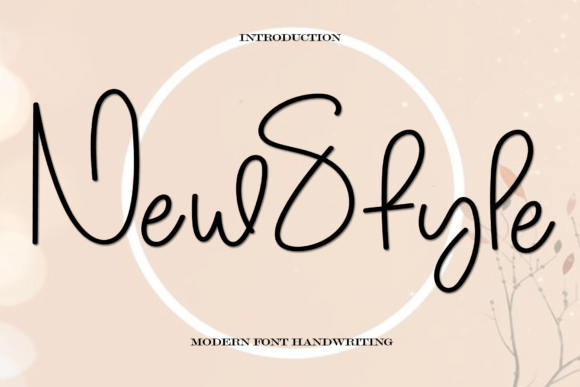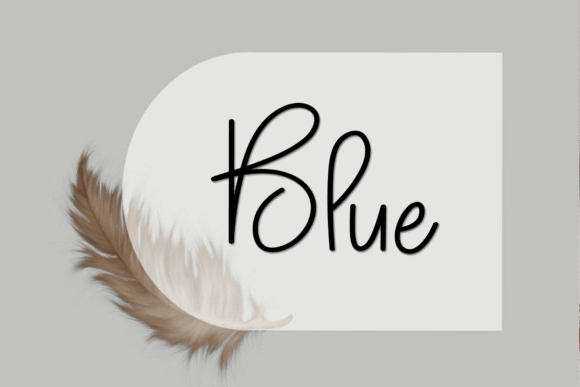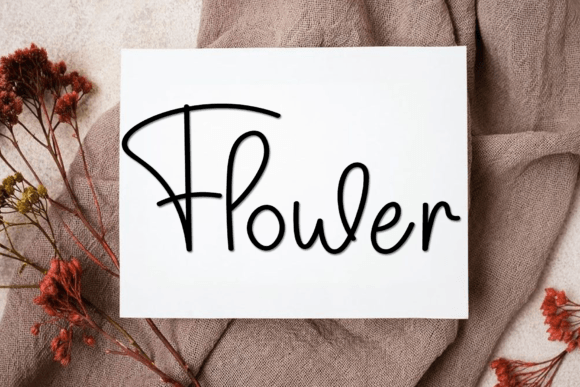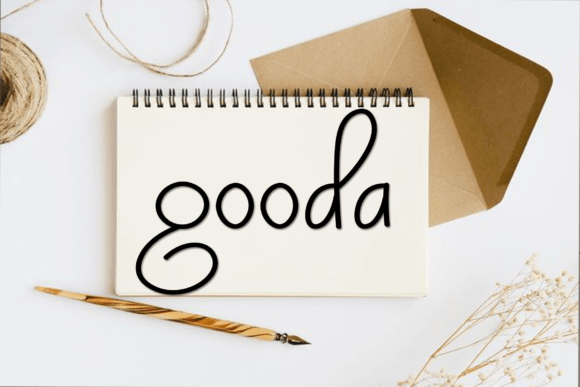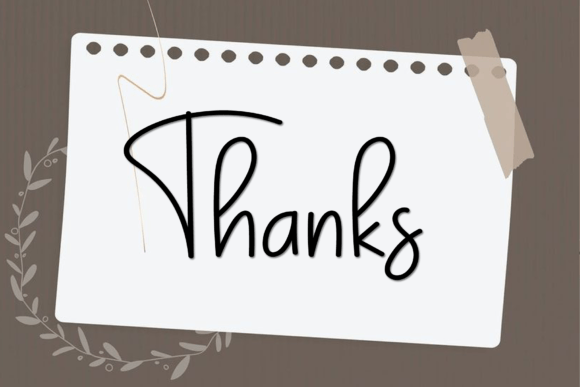
New Style Font
About New Style Font
New Style is a classic and simple handwritten script font that blends timeless charm with modern ease of use. It was created for designers, crafters, and small business owners who want an approachable yet polished handwritten look in their work. Whether you’re designing greeting cards, social media graphics, or branded materials, New Style adapts effortlessly to any creative project.
This font stands out because it balances clarity and personality. Each character has a soft, smooth curve that feels warm and welcoming. It looks handwritten but remains easy to read, even at smaller sizes.
Classic Handwritten Appeal
New Style captures the feel of natural handwriting without looking messy or uneven. The strokes are clean and consistent, giving your text a friendly and human touch.
Unlike many decorative script fonts that are hard to read, New Style keeps its forms simple. This makes it ideal for projects that need a handwritten look while still staying professional.
From personal stationery to branded packaging, this font helps you communicate warmth and authenticity.
Designed for Everyday Use
One of New Style’s greatest strengths is versatility. You can use it across a wide range of applications, including:
• Greeting cards and invitations
• Printable quotes and art prints
• Logos and branding projects
• Product labels and tags
• Social media posts and ads
• Scrapbooking and DIY crafts
No matter where you apply it, New Style feels friendly and approachable. It’s the kind of font that makes customers feel like they’re engaging with something personal and crafted with care.
Easy to Read and Professional
Some script fonts are overly ornate, but New Style was designed with legibility in mind. Its balanced letterforms and thoughtful spacing make it a pleasure to read, even in longer passages.
This means you can confidently use it for website headers, digital ads, or any design where clarity matters. Even when you increase the size for large signage or reduce it for small labels, the font keeps its crisp look.
Perfect for Crafting and Small Business
Why You’ll Love New Style
• Timeless Look: Clean and classic handwritten style.
• Easy to Use: Perfect for digital and print projects.
• Versatile: Works well across branding, crafts, and personal projects.